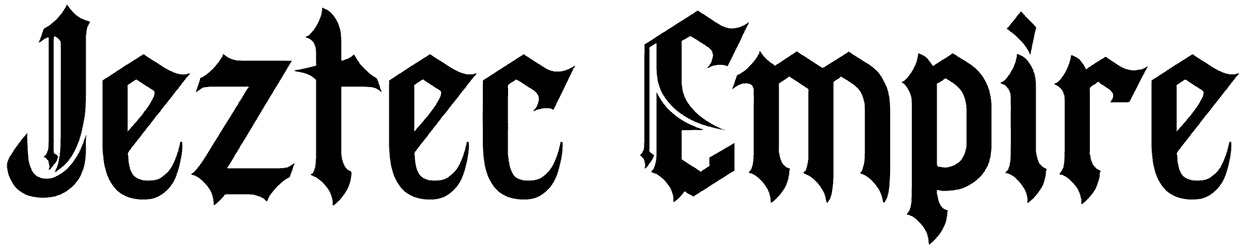
Jeztec Empire Font
Use this modern gothic font in all your creations. The Jeztec Empire font is a great way to inject some fun and whimsy into any design, thanks to its pointy and jagged appearance. Significant places for the Jeztec Empire include books, art projects, signs, apps, and titles.